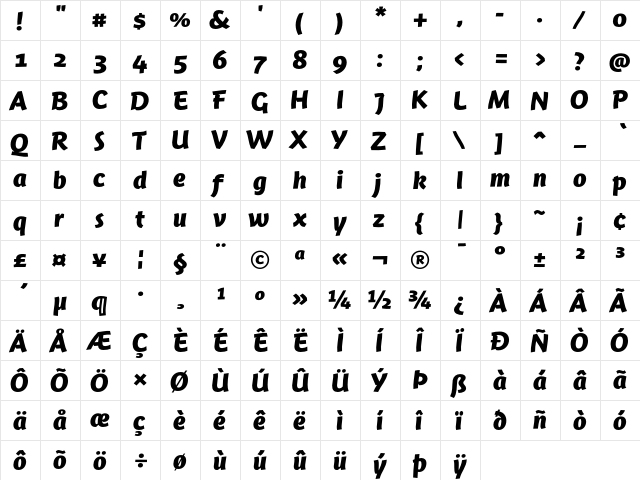
Jambono-Bold Regular
Design Context for Jambono-Bold Typeface
Jambono-Bold takes a measured approach to typography — its balanced proportions and neutral character make it a reliable workhorse for both digital and print work. The heavy weight commands attention and anchors typographic hierarchies.